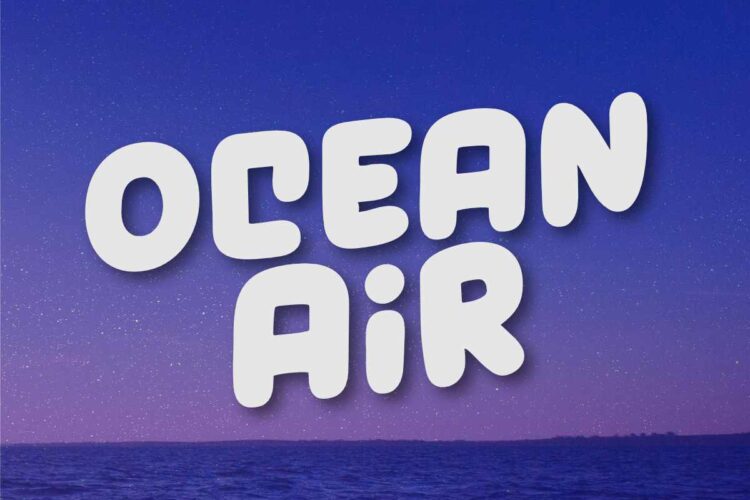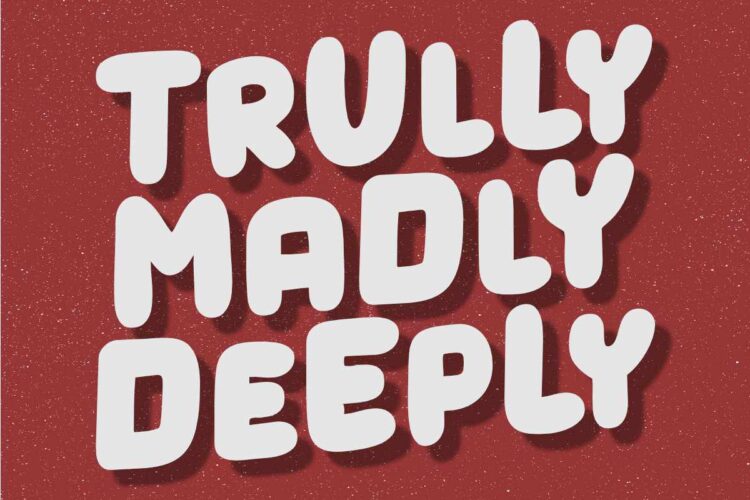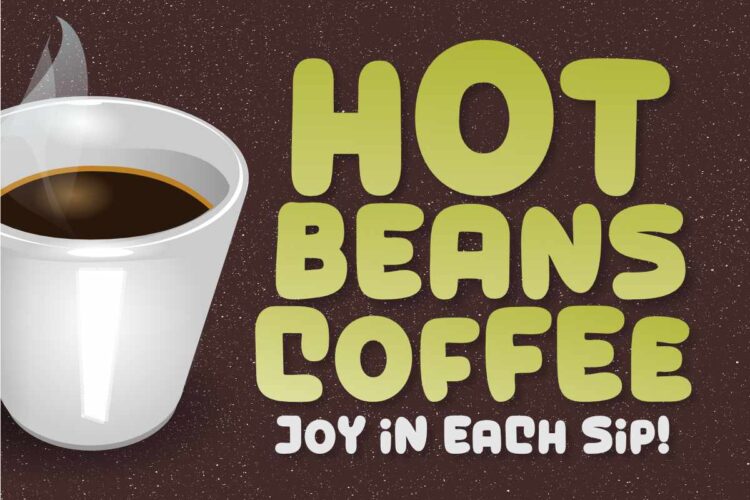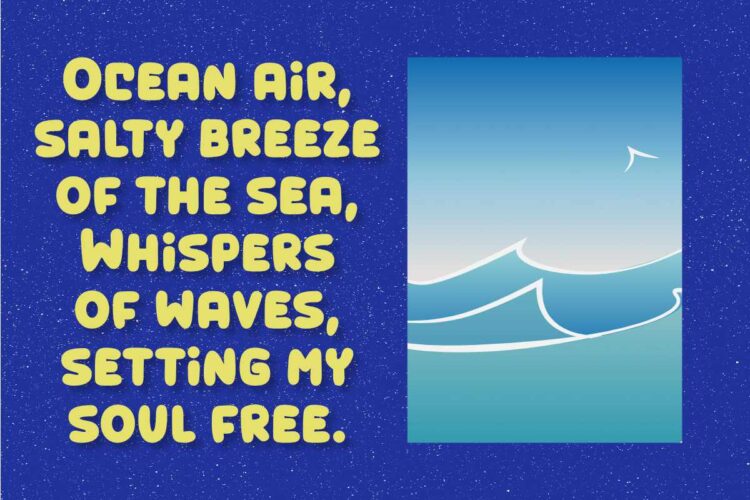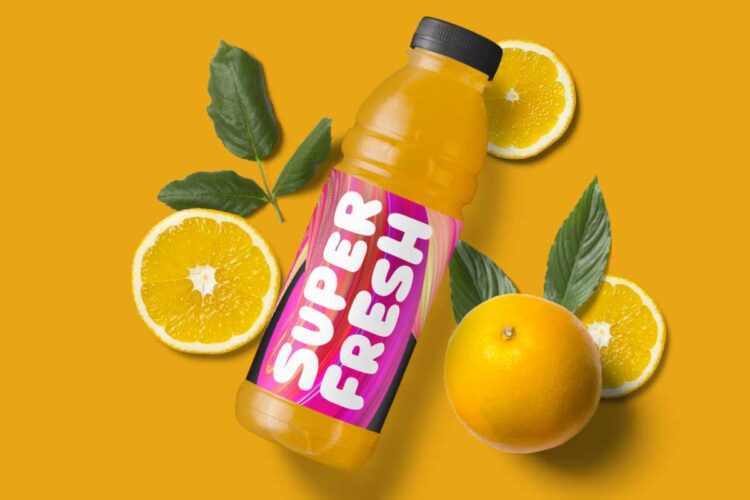
Dive into the world of Ocean Air, where every letter dances with boldness and playfulness. This smooth display font is like a splash of fresh sea breeze on your creative projects – it’s versatile, eye-catching, and utterly fun! Ocean Air will bring excitement to your work, whether you’re designing a striking logotype, captivating product packaging, or attention-grabbing headlines. Its sleek lines and stylish curves make each character pop with personality, adding a touch of whimsy to any design.